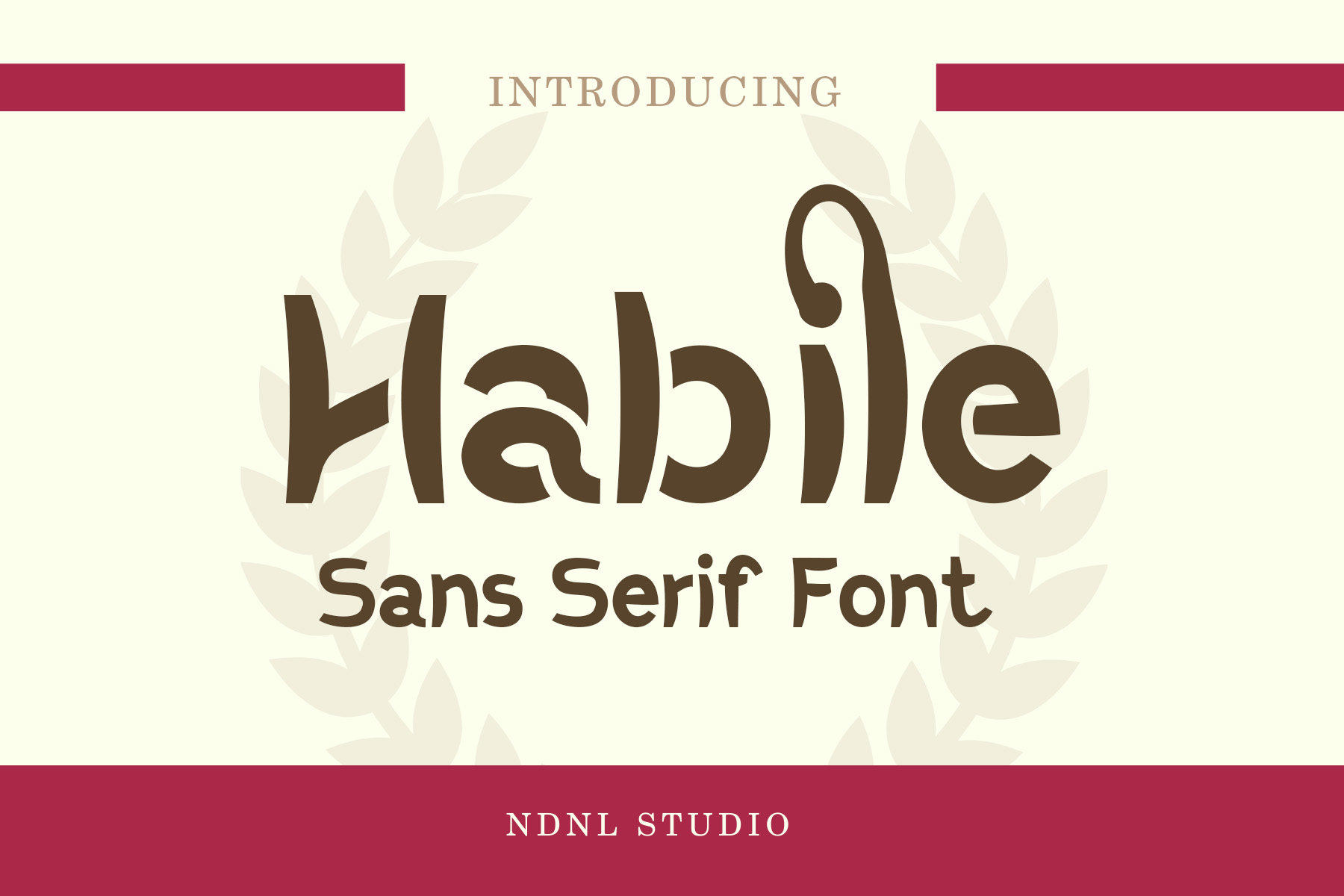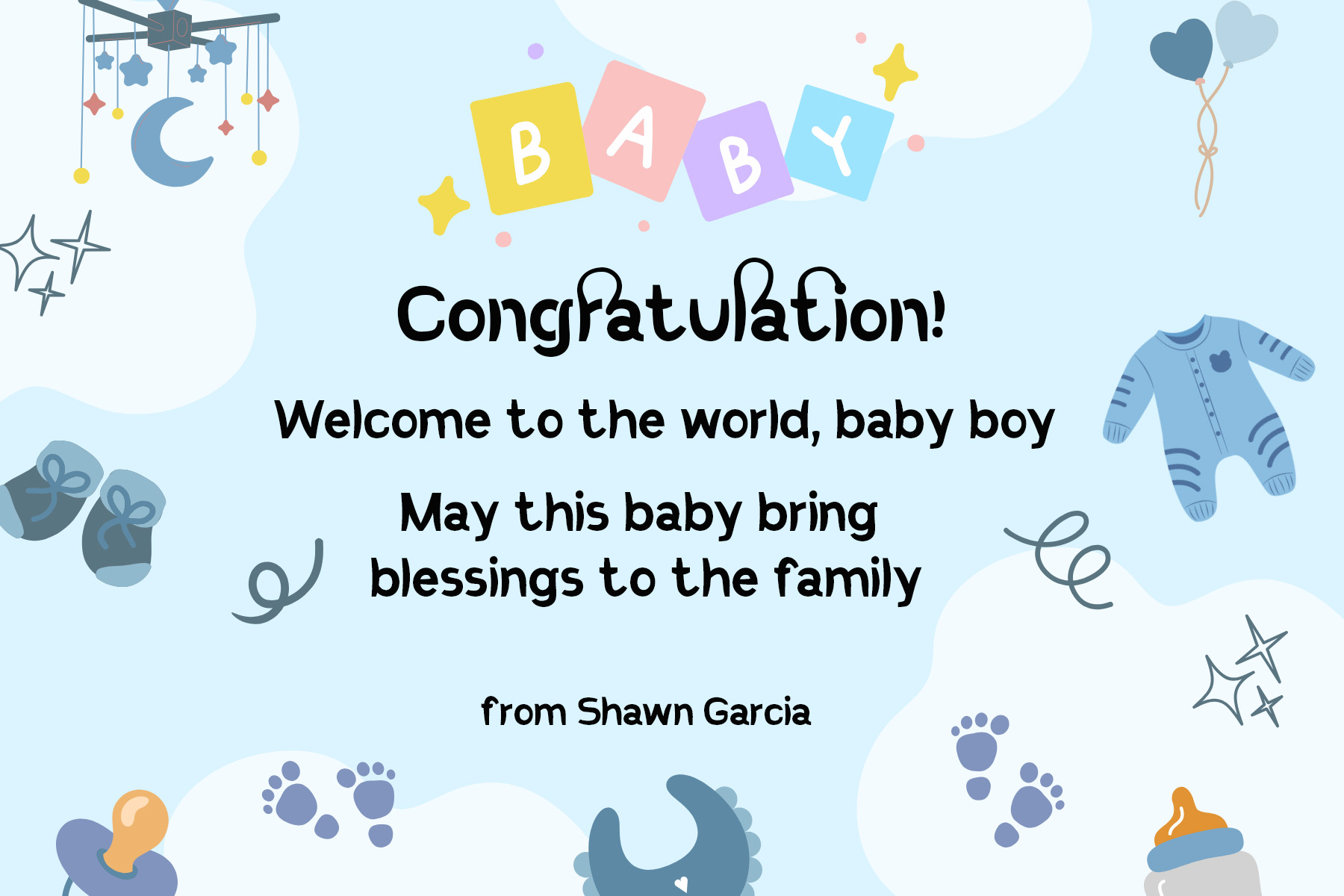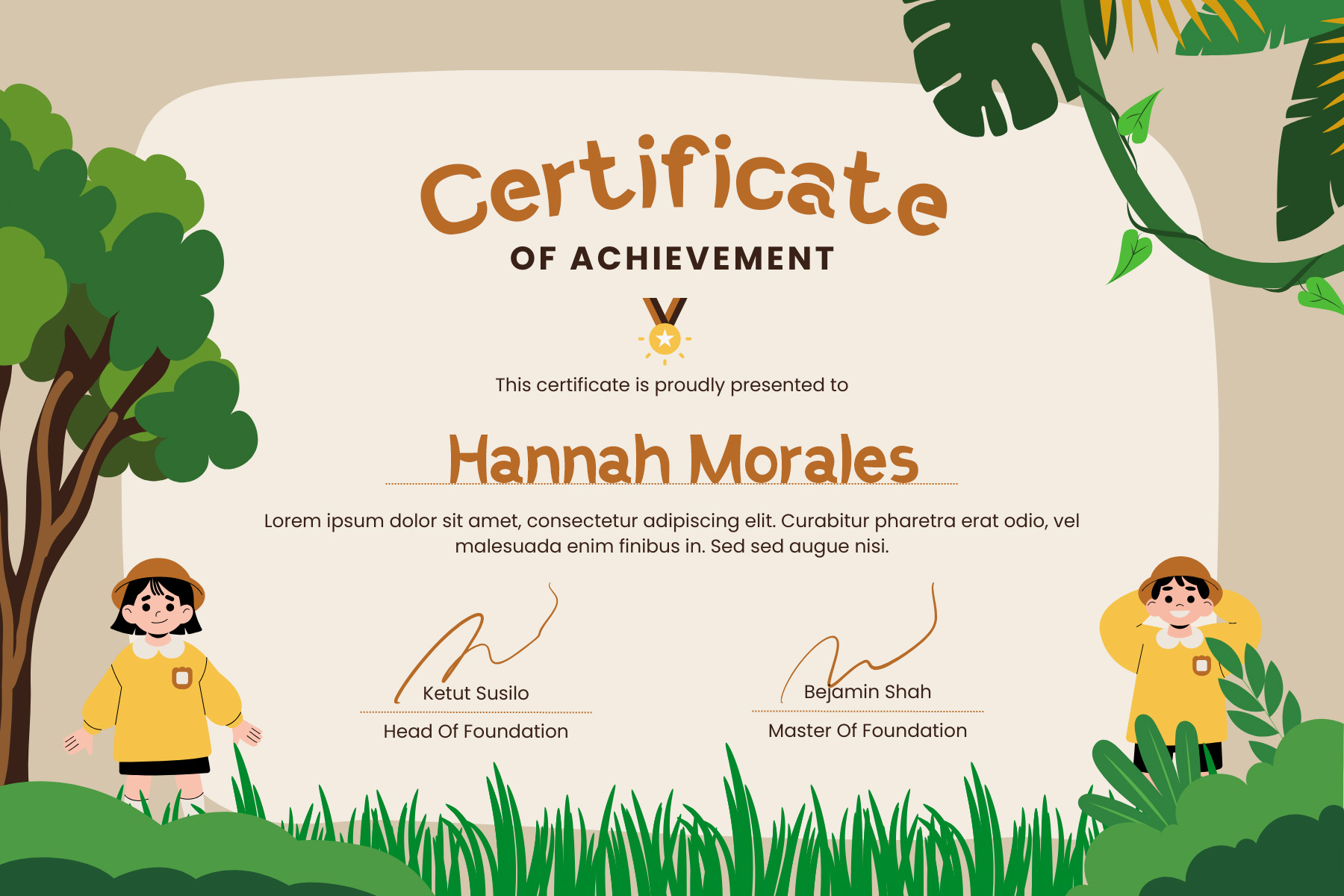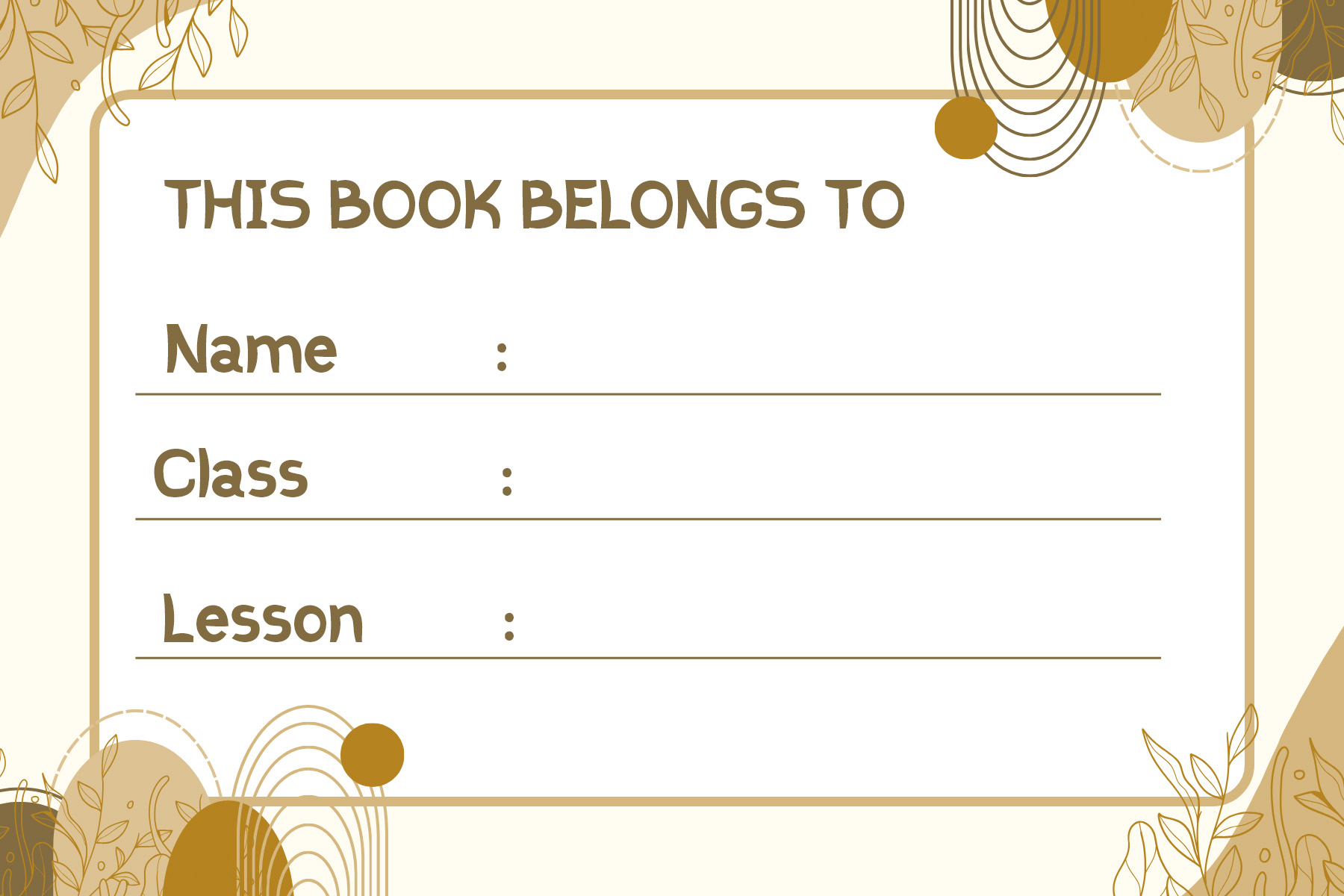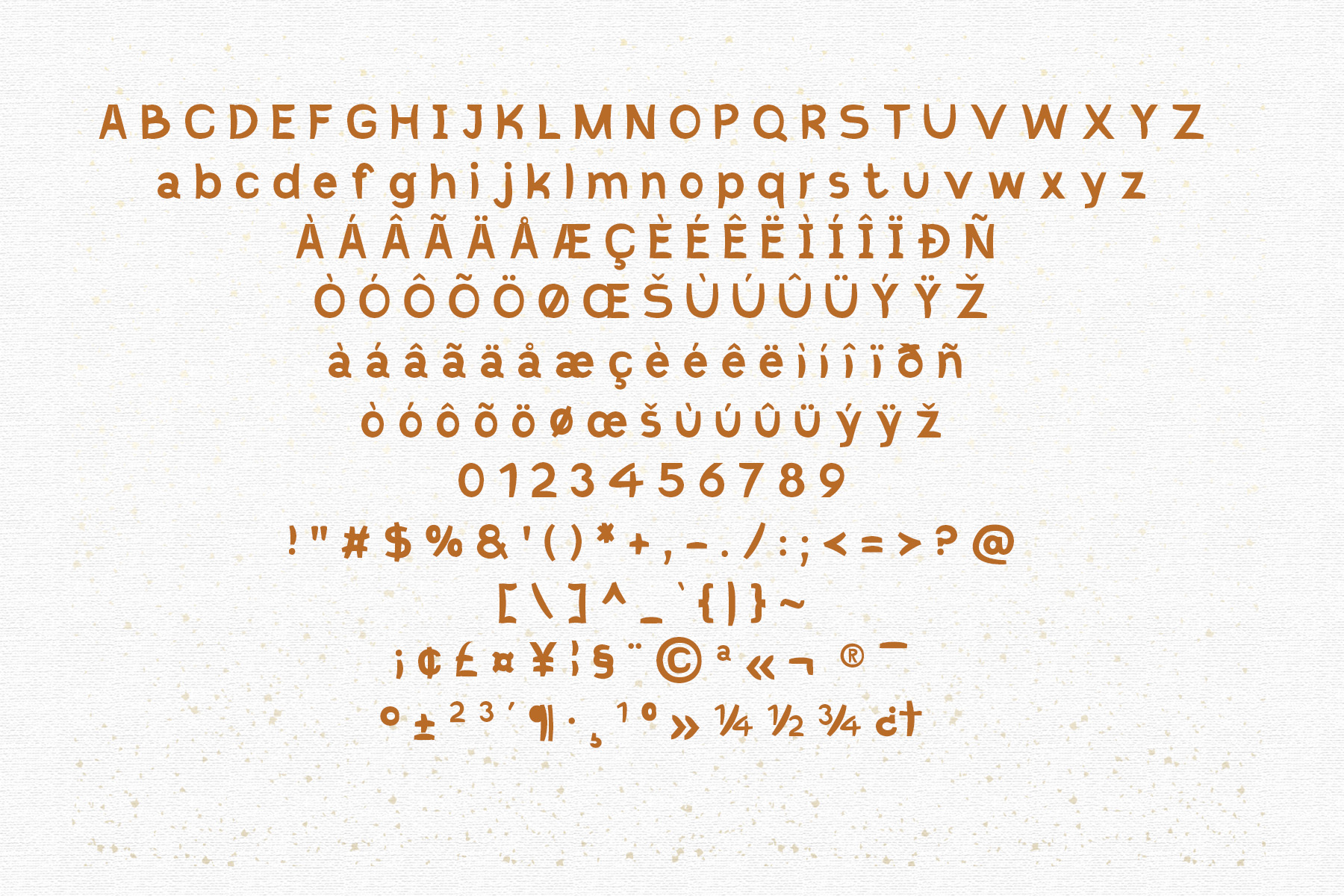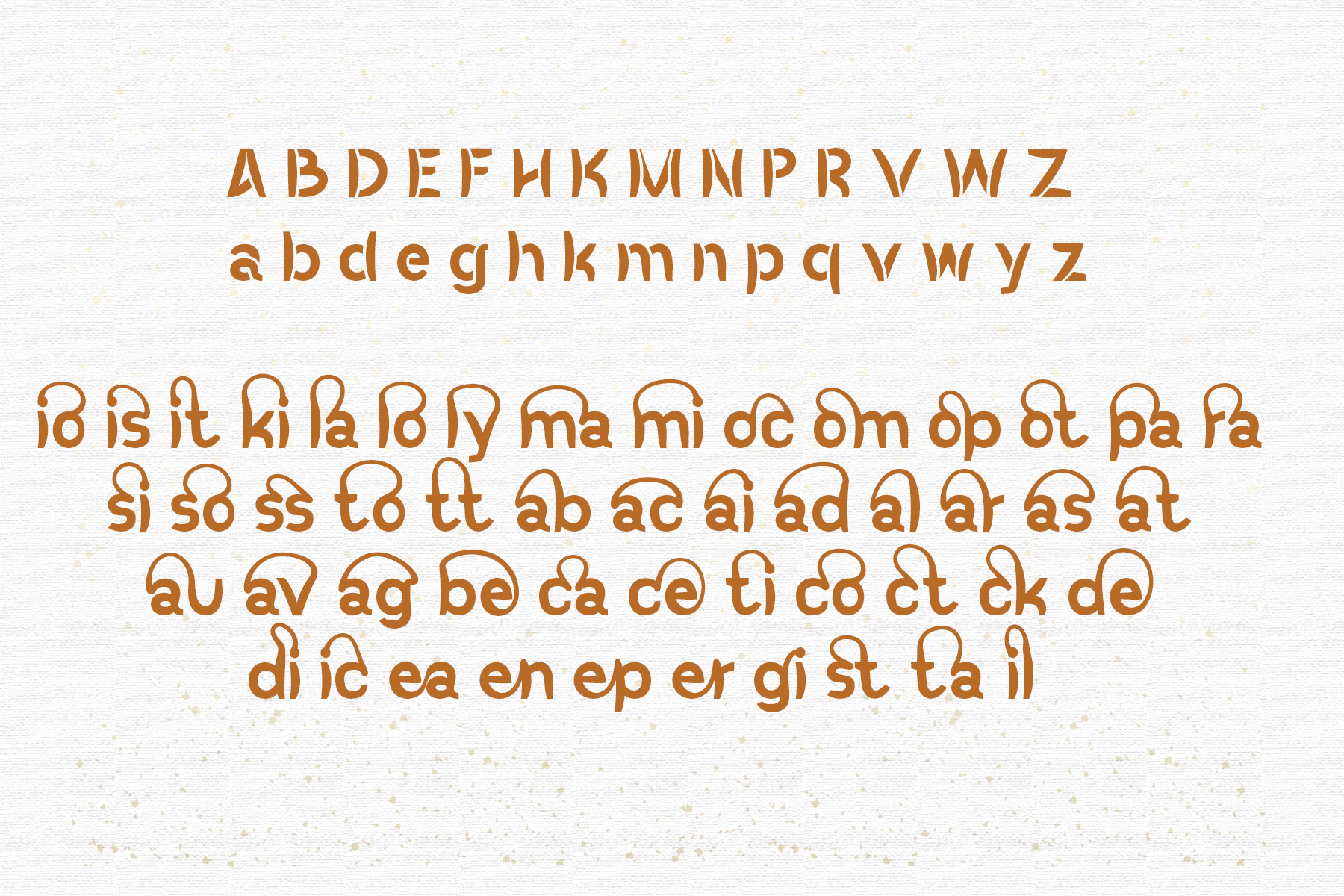
Introducing Habile!
Habile is a modern sans serif font designed with a playful and approachable spirit. Its letterforms combine soft, rounded curves with confident strokes, creating a balance between friendliness and clarity. The unique detailing in each character makes Habile stand out from ordinary sans serifs, while still keeping excellent readability in both large and small sizes.
This font is highly versatile – perfect for branding projects, posters, product packaging, social media graphics, invitations, and children’s books. Whether you are looking to design something fun and cheerful or professional yet creative, Habile provides the flexibility to adapt to many styles.